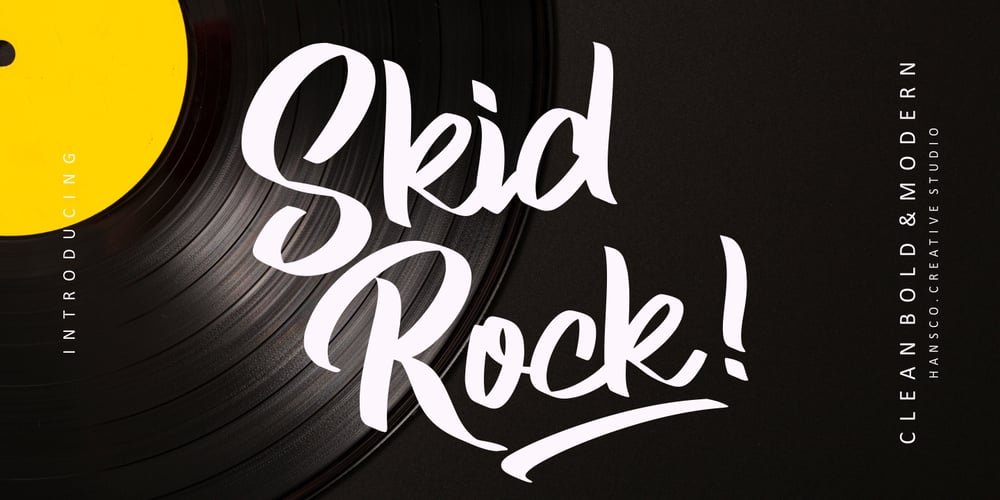
Skid Rock Font Family was designed by Burhan Afif and published by HansCo. Skid Rock contains 1 styles and family package options. Skid Rock is a modern, bold and clean font that will be perfect for multipurpose projects. This font looks cool in any design and is very recommended for craft, posters, books, branding, quotes, print templates, packaging, invitations, music labels or anything else that needs a touch of something bold and clean. Skid Rock comes in uppercase and lowercase, with punctuation, symbols, numerals, swashes and it also has multilingual support. Swashes is alternate from numeral 0 – 9. You can access swashes from your OpenType panel in your design software.